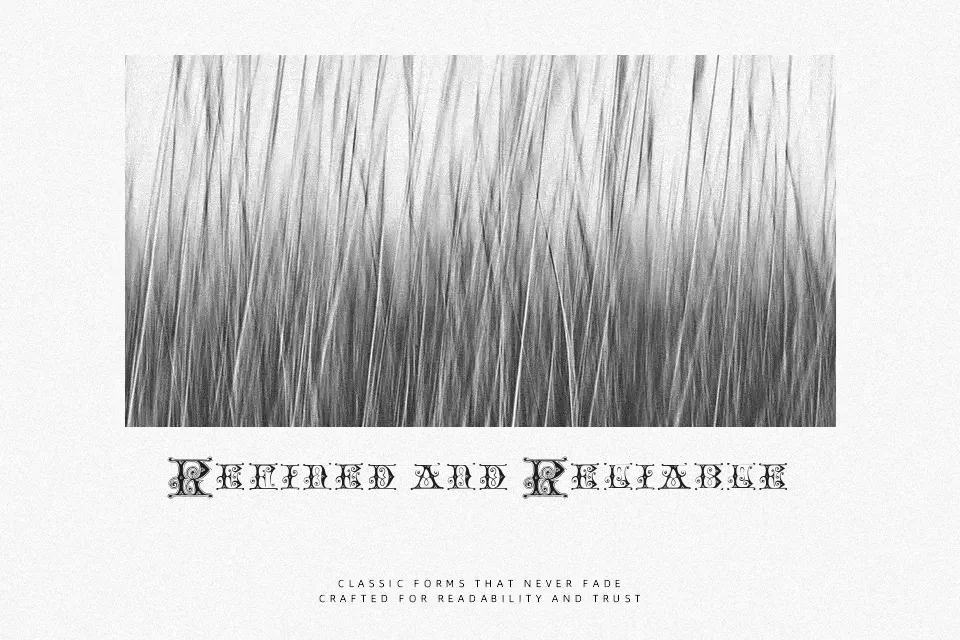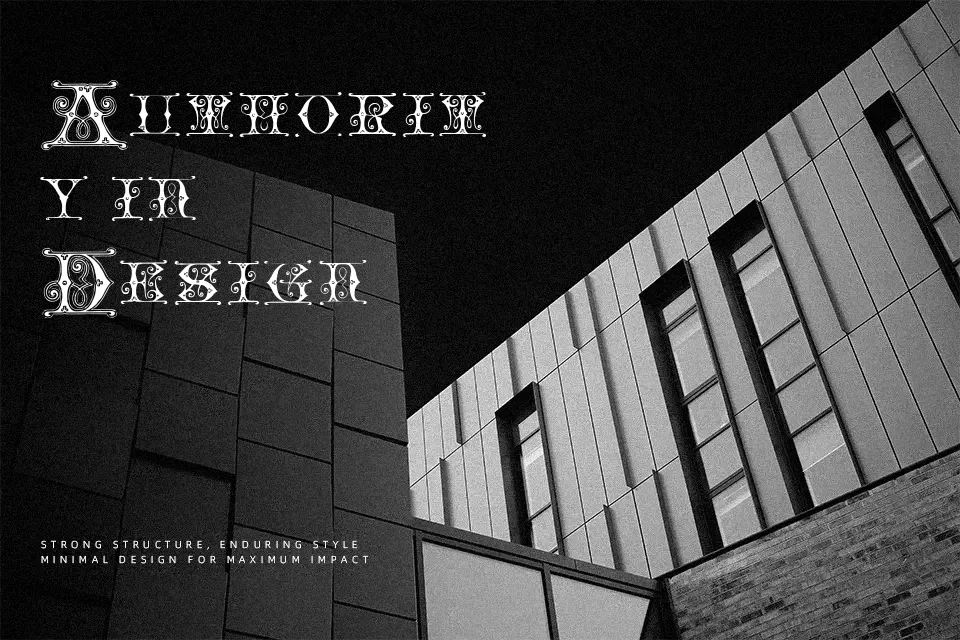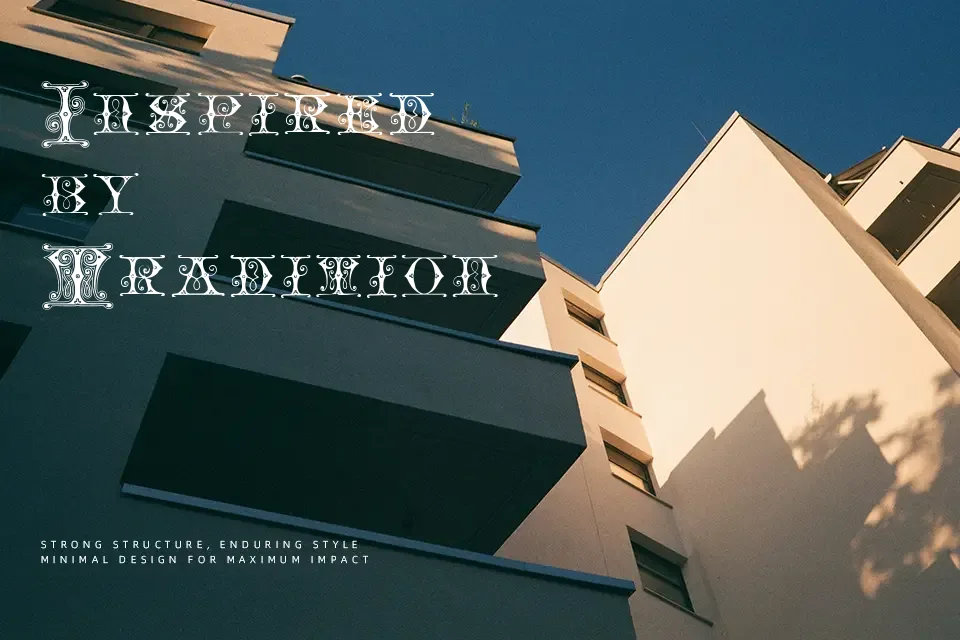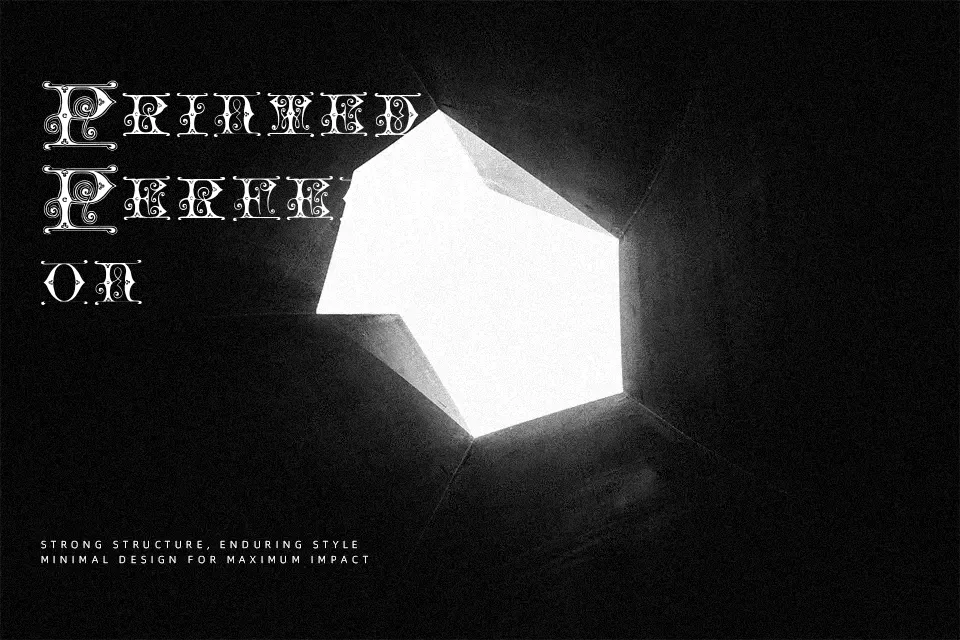
Blavicke Capitals Font
Designed by Paul Lloyd
Blavicke Capitals is an elaborate decorative display font crafted by Paul Lloyd, characterized by its highly ornate, historical uppercase lettering. The visual structure relies on intricate strokes, classic serif foundations, and vintage-inspired detailing that evoke a strong sense of ancient elegance and medieval charm. This typeface immediately stands out for its bold presence and intricate embellishments.
It performs beautifully when used for dominant headlines, fantasy-themed posters, formal invitations, or elegant editorial initials where a touch of history is required. However, due to its highly decorative and complex nature, Blavicke Capitals is unsuitable for lengthy paragraphs, digital user interfaces, or small body text where readability becomes compromised. Compared to standard serifs, this font offers a far more dramatic and classic aesthetic.
Fantasy book covers and historical posters
Elegant drop caps in editorial layouts
Vintage-style invitations and formal event branding
Striking typography for main headers
Long paragraphs or dense body text
Modern and minimalist digital interfaces
Small print sizes where intricate details fade
Perfect for editorial, headline, and invitation, with a ancient and decorative style.